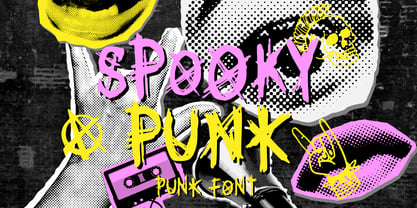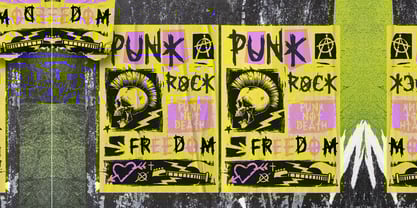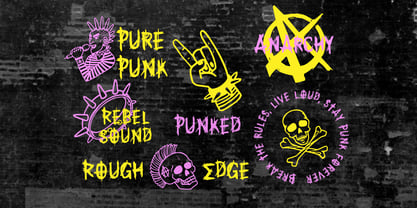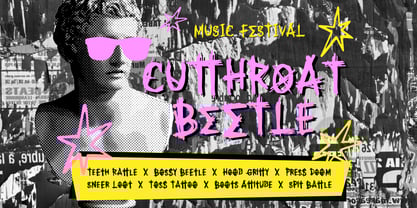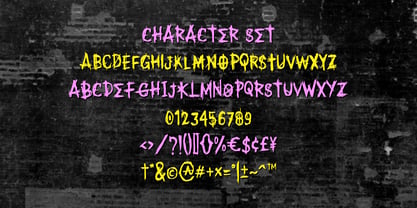
Spooky Punk
by Shanaf
The Spooky Punk Font Family was designed by Yesie Erma Yunita and published by Shanaf. Spooky Punk contains 1 styles. More about this family
Spooky Punk - Punk Font is an electrifying digital font that captures the wild essence and rebellious spirit of the punk rock era. Inspired by urban street art and raw musical vibes, this unique typeface features chaotic, hand-drawn strokes, exaggerated brush textures, and intentionally messy lettering. Each character is distinctively designed to evoke an energetic, vibrant, and defiant attitude, making it a perfect choice for any creative project seeking a bold, gritty, and unapologetic visual impact. Its layout complements the anarchic aesthetics typically associated with punk and street subcultures, showcasing uneven lines, jagged edges, and dynamic overlapping styles.
This expressive and versatile font is ideally suited for various creative purposes such as striking logos, edgy branding, dynamic crafting projects, unconventional invitations, provocative packaging, posters for music events, and eye-catching book or magazine covers. Spooky Punk is also ideal for film titles, stickers, and bold visual statements designed to stand out in the crowded digital landscape. Its playful yet aggressive design resonates deeply with contemporary trends in music, fashion, and urban art, ensuring every design captures attention and speaks volumes about individuality and authenticity.